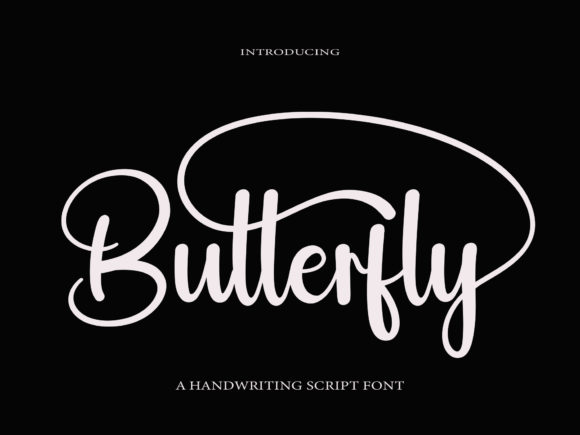
The Sweetness of Butterfly Font: A Designer’s Delight
I still remember the time I was working on a project for a client who wanted a custom logo with a whimsical feel. I had spent hours browsing through font libraries, but nothing seemed quite right. That was until I stumbled upon the Butterfly font. Its sweet, handwritten charm instantly captured my attention, and I knew I had found the perfect fit. In this article, I’ll share my experience with the Butterfly font, its features, and how to make the most of it in your designs.
A Personal Review of Butterfly Font
So, what makes the Butterfly font so special? Let’s dive into the good stuff! 😊
- ✨ Sweet and Whimsical: The Butterfly font has a playful, handwritten feel that’s perfect for projects that require a touch of personality.
- ✅ Highly Legible: Despite its whimsical nature, the font remains highly legible, even at smaller sizes.
- 🌈 Versatile: The font comes with a range of OpenType features, glyphs, and stylistic alternates, making it suitable for a wide range of projects.
Of course, no font is perfect, and the Butterfly font has a few minor quirks:
- 🤔 Limited use in formal contexts: Due to its playful nature, the Butterfly font may not be the best choice for formal or professional projects.
- ⚠️ Some kerning issues: As with any font, there may be some kerning issues, especially when using certain character combinations.
The Butterfly font was designed with great care and attention to detail. According to the designer, the font was inspired by the beauty of nature and the delicate wings of butterflies. The goal was to create a font that’s both sweet and sophisticated, perfect for a wide range of design projects.
| What is the Butterfly font best suited for? | The Butterfly font is perfect for projects that require a touch of personality, such as invitations, greeting cards, and social media graphics. |
| Is the Butterfly font suitable for formal projects? | No, the Butterfly font is not recommended for formal projects due to its playful nature. |